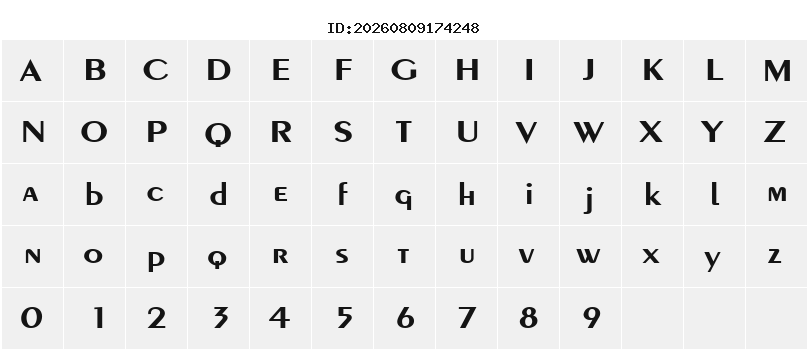
• Font Name: Pare Wide
• Full Font Name: Pare Wide Bold
About Pare Wide.ttf
Pare Wide.ttf is a modern, elegant sans-serif font designed for ultimate readability and visual harmony. Perfect for branding, headlines, web design, and print materials.